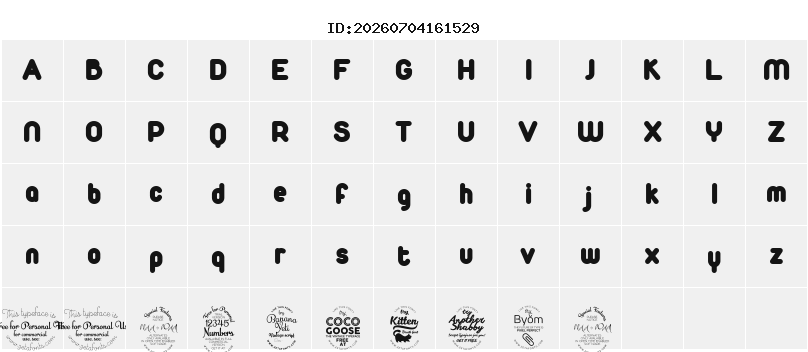
• Font Name: Duepuntozero
• Font Style: Black
• Font ID: studiokmzero: Duepuntozero Black: 2008
• Full Font Name: Duepuntozero Black
• Version: Version 1.000 2008 initial release
• PostScript Name: Duepuntozero-Black
• Designer: Francesco Canovaro
• Manufacturer: studio kmzero
About Duepuntozero.ttf
Duepuntozero.ttf is a modern, elegant sans-serif font designed for ultimate readability and visual harmony. Perfect for branding, headlines, web design, and print materials.